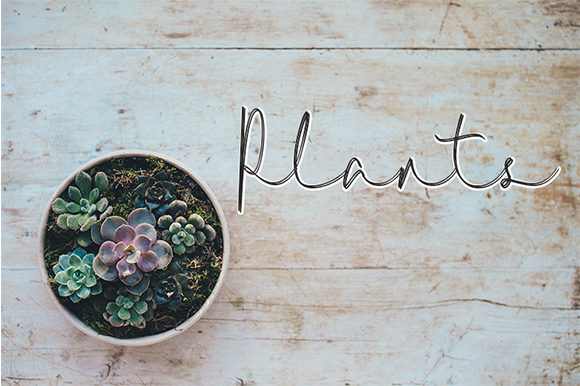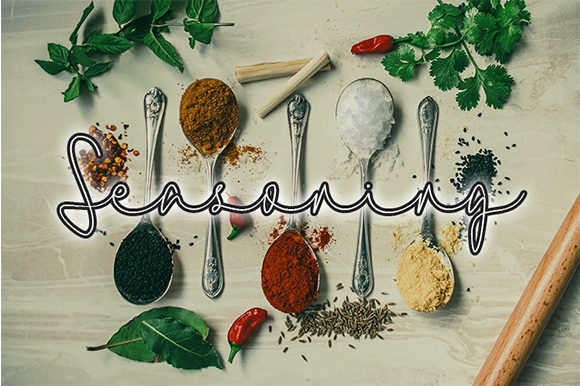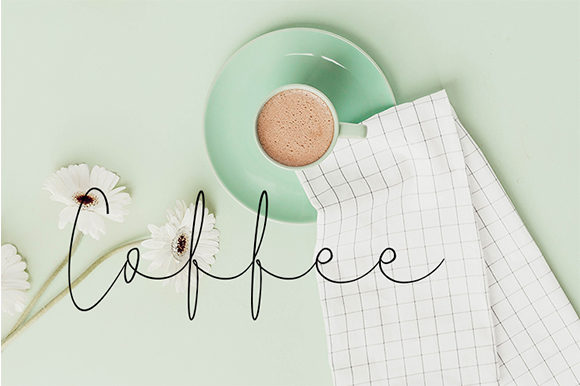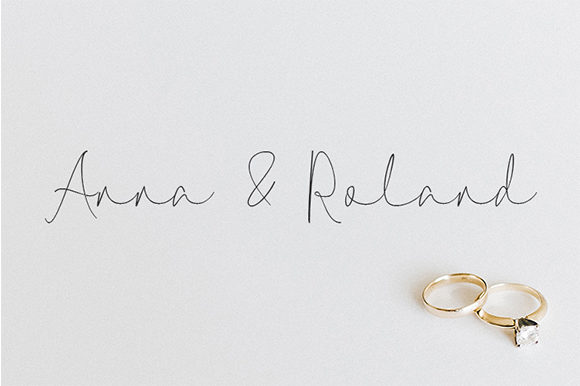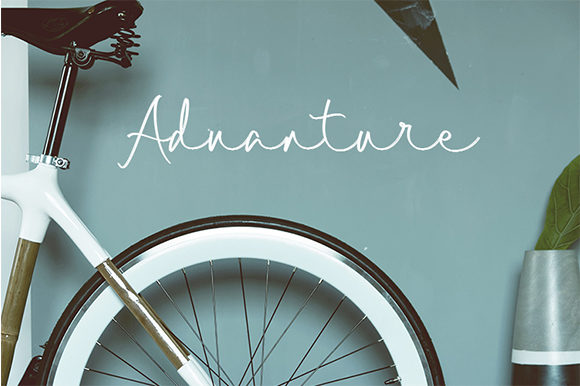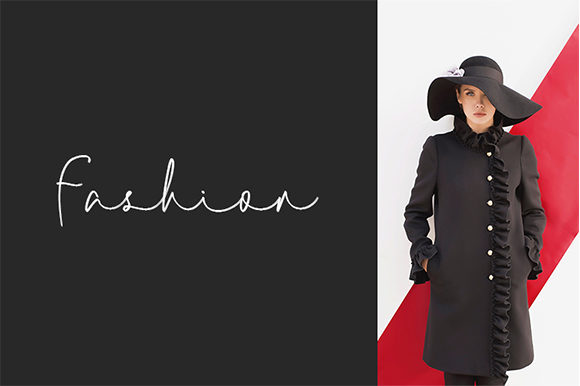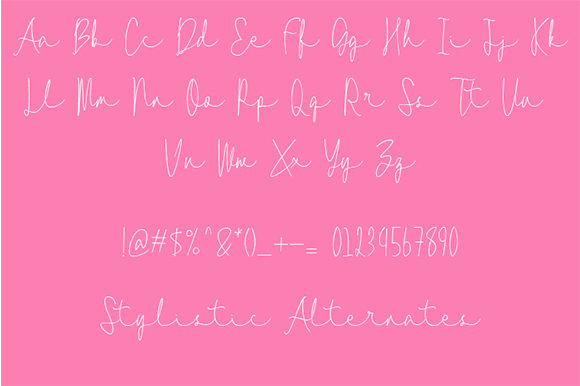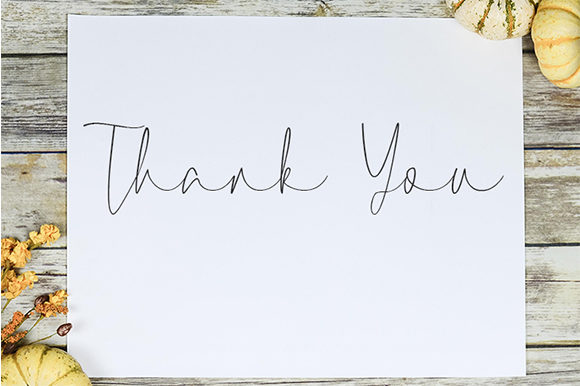
HomeScript FontsLa Corie Font Script Fonts La Corie Font FacebookXPinterestWhatsApp La Corie Font Poster 2 La Corie Font Poster 3 La Corie Font Poster 4 La Corie Font Poster 5 La Corie Font Poster 6 La Corie Font Poster 7 La Corie Font Poster 8 La Corie Font Poster 9 About La Corie Font La Corie is a sweet and cool handwritten font with a unique charm. Get inspired by its modern simplicity. DOWNLOAD NOW People also explored Coffee Latte Font Bubble Peanut Parmesan Font Billion Blink Font Play Koala Bear Font Gentle Space Font Adelisa Font Blue Font Strong Magic Font 392 0 TagsLa Corie Font Previous articleLarianti Monoline FontNext articleSignature Flavour Font LEAVE A REPLY Cancel reply Comment: Please enter your comment! Name:* Please enter your name here Email:* You have entered an incorrect email address! Please enter your email address here Website: Save my name, email, and website in this browser for the next time I comment. Personal Use Free Mallvirra Personal Use Free Read more about this font Mowgli Personal Use Free Read more about this font Valentine Chips Personal Use Free Read more about this font Boby Personal Use Free Read more about this font BLOG Best Fonts for T-Shirt Design – Top 2025 Picks In 2025, t-shirt design has become more than just fashion—it's a form of self-expression. Whether you're... Free vs Paid Fonts: Why Investing in Premium Fonts Is Worth It Free Fonts Risk: Why Free Fonts Can Be Dangerous for Designers Fonts That Capture the Spirit of New York City